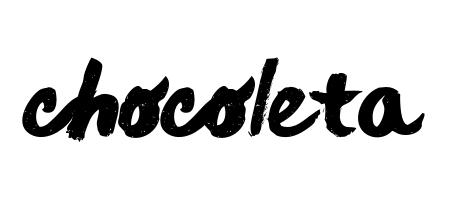
Chocoleta
By Peter Olexa
Chocoleta is a playful, handwritten-style script font. Its curves are fluid and expressive, conveying a sense of warmth and sweetness, perhaps hinting at the deliciousness of chocolate. The letters are connected, creating a sense of continuous motion, giving it a casual and friendly feel. The slightly uneven thickness adds to its hand-drawn charm.